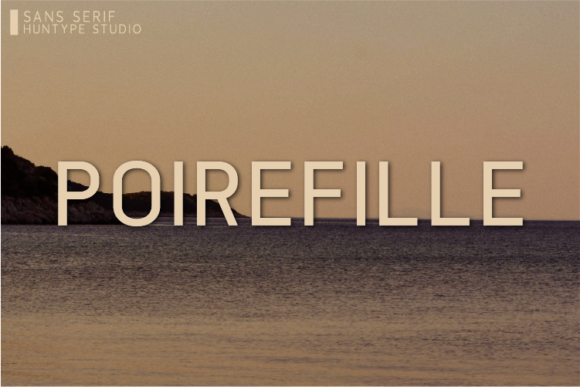
Introducing Poirefille Font, the epitome of elegance and charm in the world of typography. This captivating sans serif font, crafted with meticulous care by Huntype, is a masterpiece of simplicity and beauty, perfect for adding a touch of sophistication to any design project.
With its clean lines and graceful curves, Poirefille Font exudes an air of timeless elegance, making it the perfect choice for creating stunning wedding vows, heartfelt love letters, and heartfelt invitations. Its versatility extends far beyond the realm of romance, as it also shines in creating polished presentations, sleek logos, and eye-catching marketing materials.
As you immerse yourself in the world of Poirefille Font, you'll discover a boundless array of creative possibilities. Let your imagination soar as you craft designs that reflect your unique personality and style. Elevate your work to new heights with this font's undeniable charm, and leave a lasting impression on your audience.
* Unleash the Romantic Essence:
Enrich your wedding vows with the romantic allure of Poirefille Font. Let your words of love dance gracefully across the page, capturing the essence of your enduring commitment. Embrace the timeless beauty of this font, and create a lasting keepsake that reflects the depth of your affection.
* Craft Timeless Invitations:
Design elegant invitations that set the tone for your special occasion. Whether you're planning a grand celebration or an intimate gathering, Poirefille Font will elevate your invitations to a work of art. Its refined style will captivate your guests, leaving them eager to share in your joy.
* Create Compelling Marketing Materials:
Leave a lasting impact on your customers with marketing materials that exude professionalism and sophistication. Poirefille Font's clean lines and commanding presence will make your products and services stand out from the crowd, attracting attention and driving conversions.
Immerse yourself in the world of Poirefille Font and unleash your creative potential. Discover the endless possibilities that await you as you explore the depths of this remarkable font. Let Poirefille Font be your muse, guiding you towards designs that inspire, captivate, and leave an indelible mark on the world.